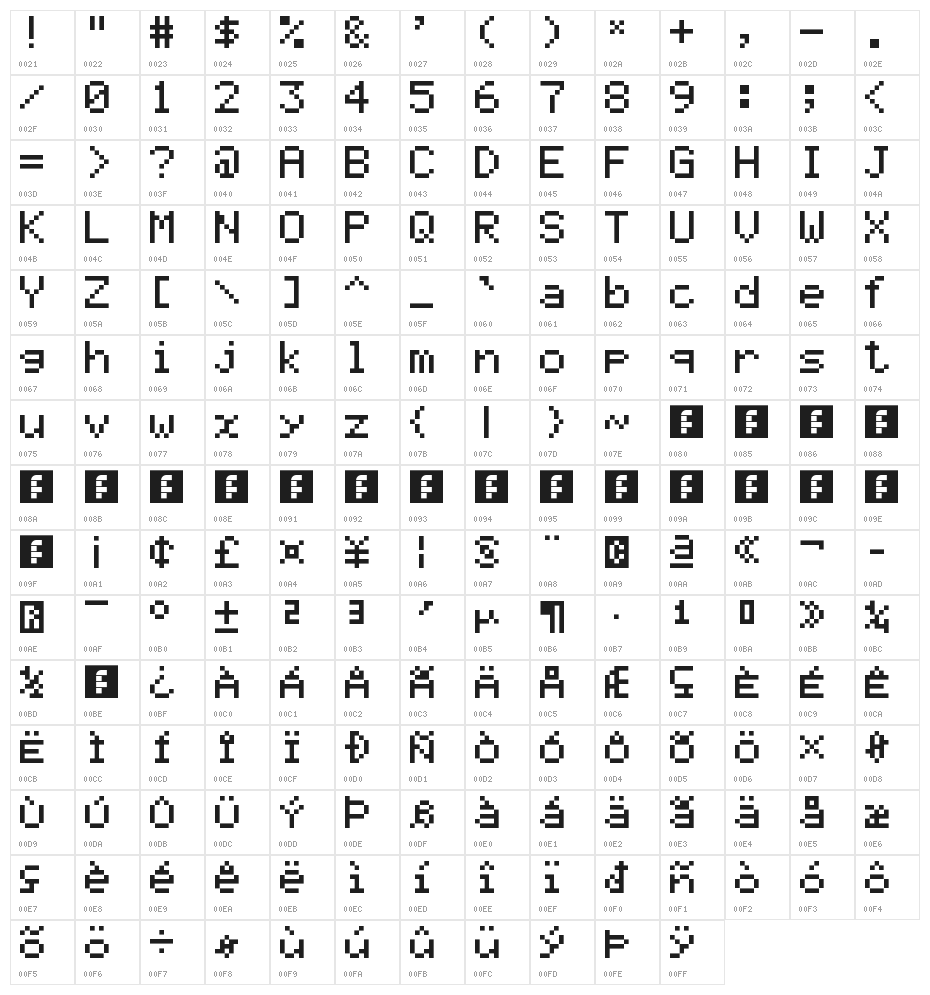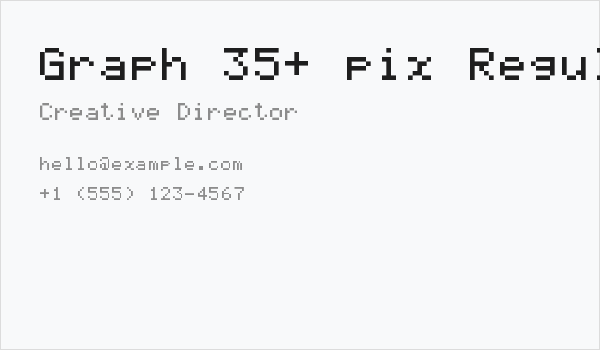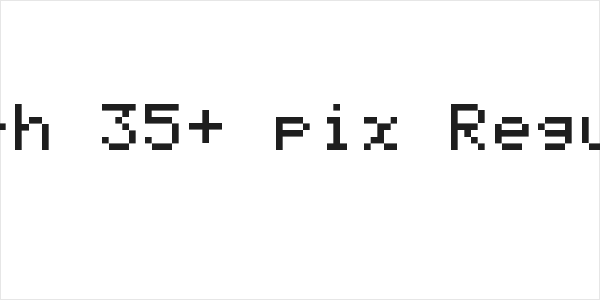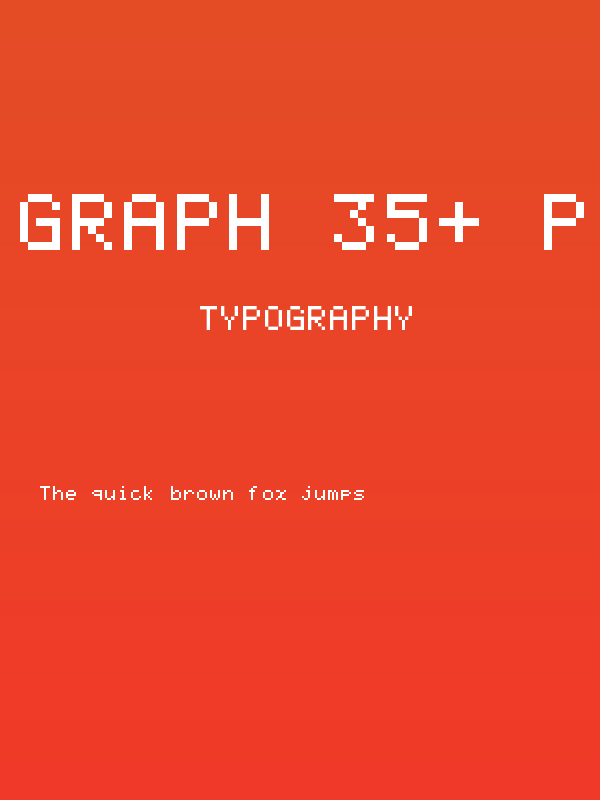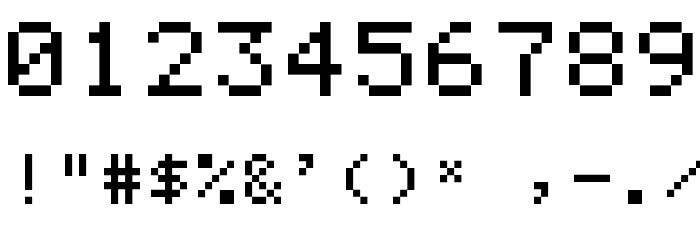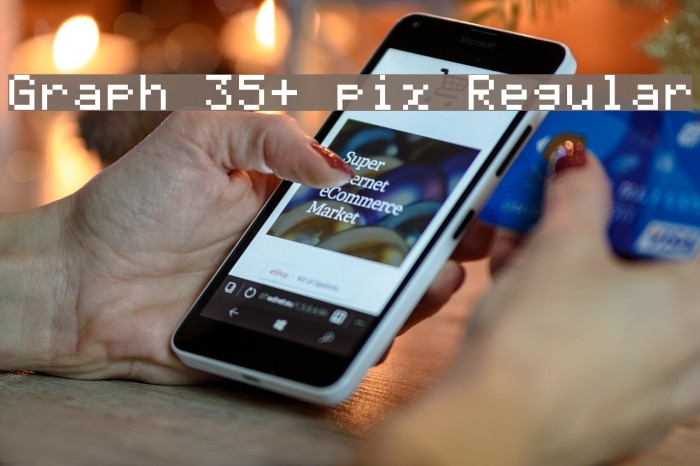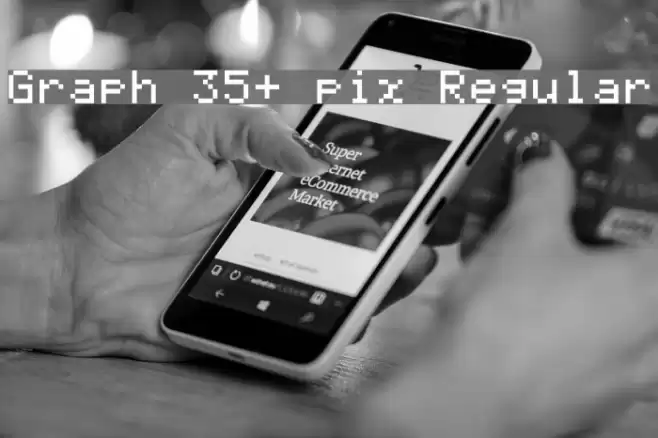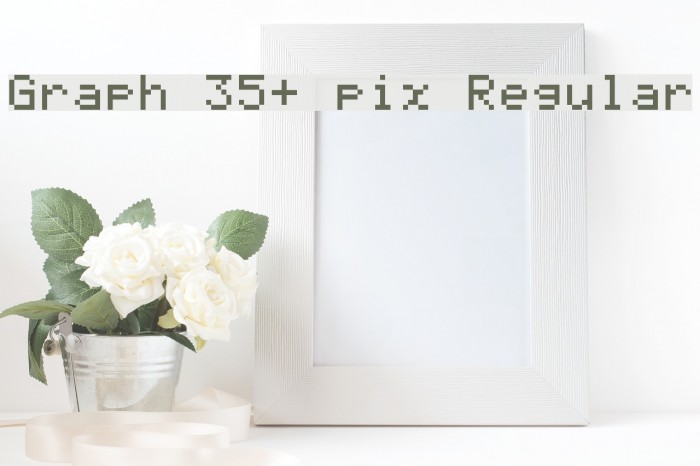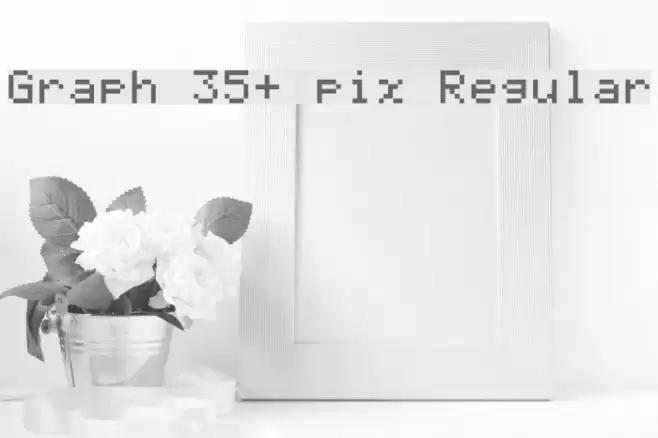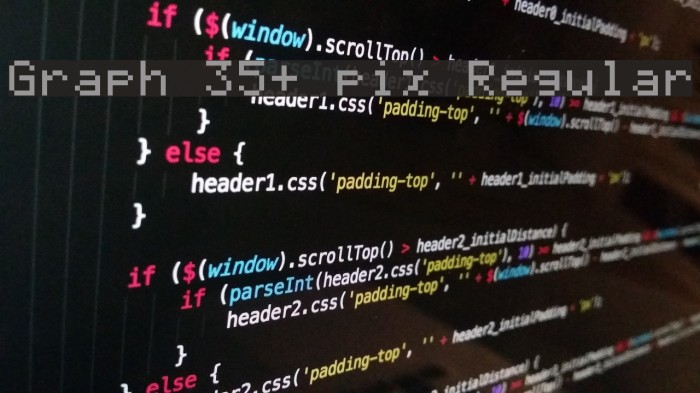
Graph 35+ pix Regular Font
Graph 35+ pix Regular Description
This font features a pixelated, grid-like structure reminiscent of early digital displays and retro video games. Each character is composed of distinct square blocks, creating a uniform and monospaced appearance. The uppercase and lowercase letters maintain a consistent height and width, emphasizing clarity and readability. The numerals and special characters follow the same pixelated style, ensuring a cohesive look across all text elements. This font's nostalgic and digital aesthetic makes it ideal for projects that aim to evoke a sense of retro technology or gaming culture.
| Overall Style | Retro, Digital |
| Use Case | Logos, Headlines, Digital displays |
| Proposed Projects | Ideal for retro video game designs, digital art projects, tech-themed posters, and nostalgic branding. |